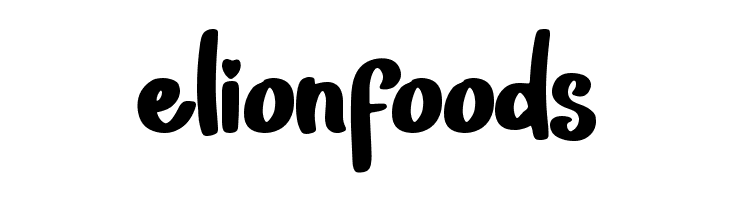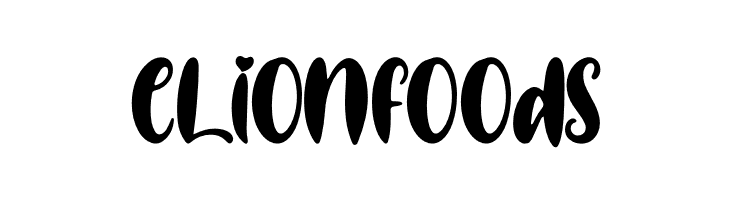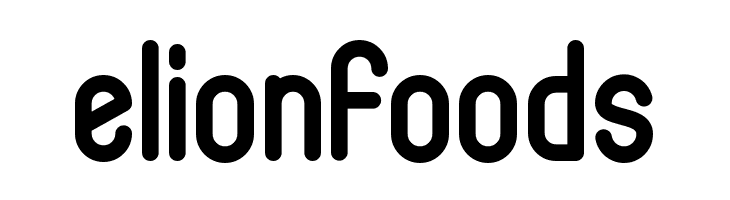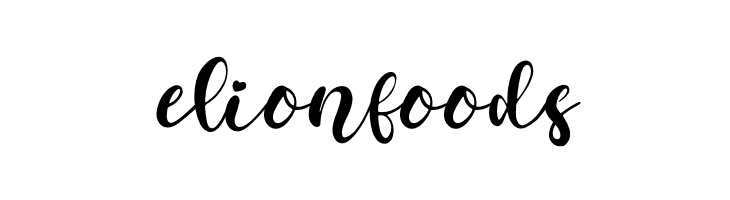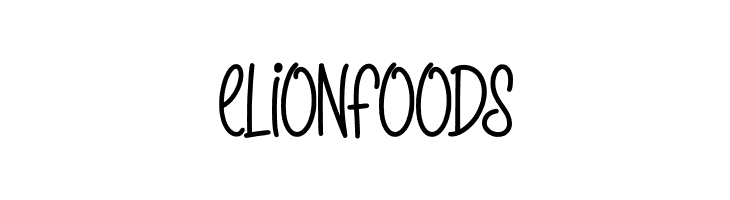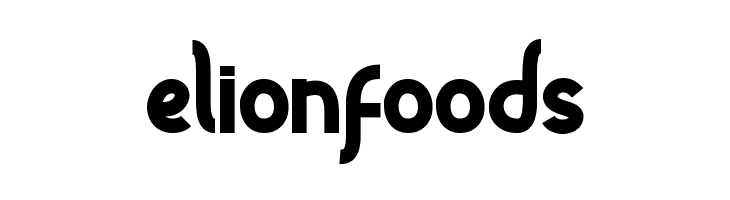
A playful, bold script font with a hand-drawn, whimsical style.
A playful, bold script font with a whimsical, hand-drawn style.
A bold, rounded font with a modern and playful style.
A modern, elegant cursive font with interconnected characters and a fluid style.
An elegant script font with high contrast and flowing curves.
A festive, cursive font with elegant loops and swirls, perfect for holiday themes.
A graceful script font with elegant loops and flourishes.
A playful, handwritten font with smooth, flowing lines and a casual style.
A whimsical and elegant script font with a hand-drawn, calligraphic style.
A bold, playful font with a hand-drawn, dynamic style.